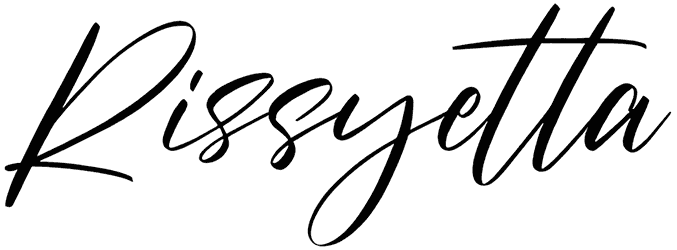
Rissyetta Font
Among the best and most popular designs are those with beautiful and realistic words. This signature font with a casual and silky letter style is a good choice to create this mood for your present project. With an A-Z cover of characters, Rissyetta provides an excellent chance to trim your intended designs from logotypes to social media posts.